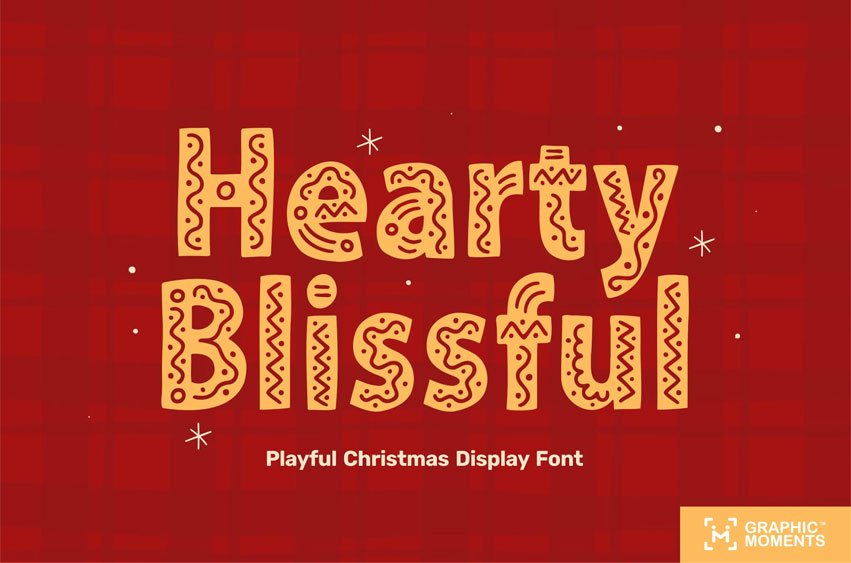
Hearty Blissful Font is a playful and delightful Christmas-themed display font, designed to bring a warm, festive feeling to your creative projects. Inspired by the cozy look of gingerbread cookies, each letter is adorned with whimsical icing-like details that evoke the sweetness of the holiday season. This font is perfect for greeting cards, Christmas invitations, seasonal posters, and any other holiday-themed design where you want to spread joy and cheer.
With its friendly and charming aesthetic, Hearty Blissful adds a unique touch to your designs, standing out with its inviting, hand-crafted style. Its bold, eye-catching appearance is ideal for headlines, banners, or any project that needs a festive flair. Let Hearty Blissful infuse your Christmas designs with a sense of warmth, happiness, and holiday spirit.